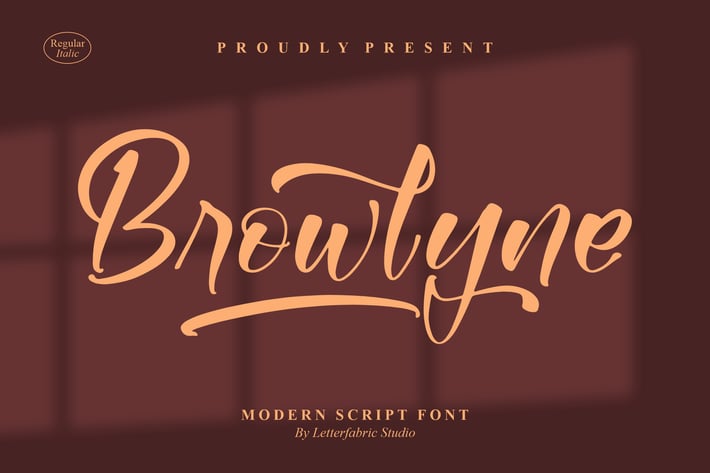
Browlyne Modern Script Font
Browlyne is a modern script with smooth, sun-kissed strokes, generous swashes, and a relaxed handwritten rhythm. Its soft contrast and rounded curves deliver a warm, stylish feel that shines on beauty and fashion branding, wedding stationery, and social media quotes. Pair Regular & Italic styles to build effortless headlines, accents, and signatures.
+ Regular & Italic styles for easy pairing
+ OpenType ligatures & stylistic alternates
+ Elegant swashes for entrances and endings
+ Smooth curves and tuned kerning for clean results
Wrap your words in warm, flowing elegance with Browlyne.